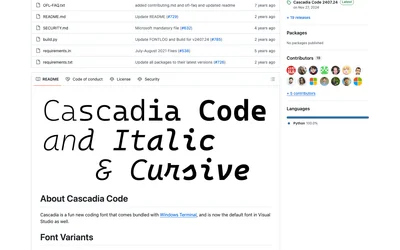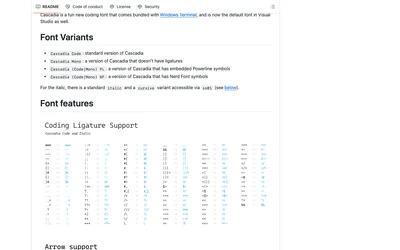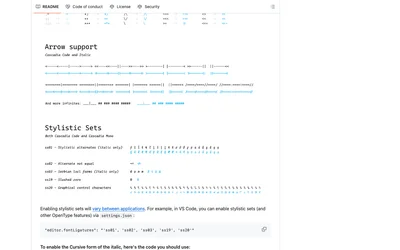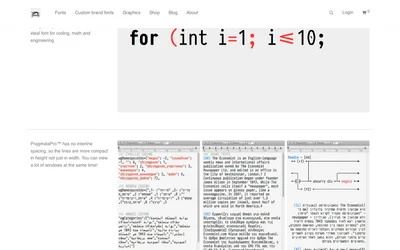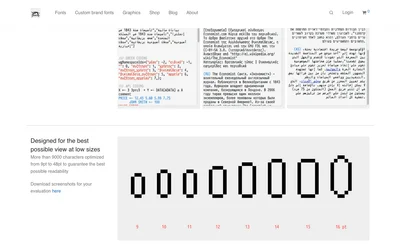
Cascadia Code vs PragmataPro
Cascadia Code and PragmataPro are both mono typefaces sharing a monospace foundation. Where Cascadia Code leans modern, PragmataPro brings condensed. Compare which suits your Code project.
| Feature | Cascadia Code | PragmataPro |
| Classification | mono | mono |
| Variable Font | Yes | No |
| Weights | Variable | Multiple |
| Language Support | latin, latin-extended | latin, latin-extended, cyrillic, greek |
Recommended: Cascadia Code
- modern design character
- Suited for Editors
- Available as a variable font
Consider: PragmataPro
- condensed design character
- Suited for Dense Text